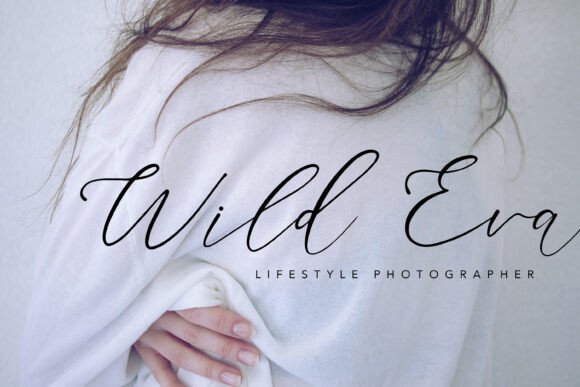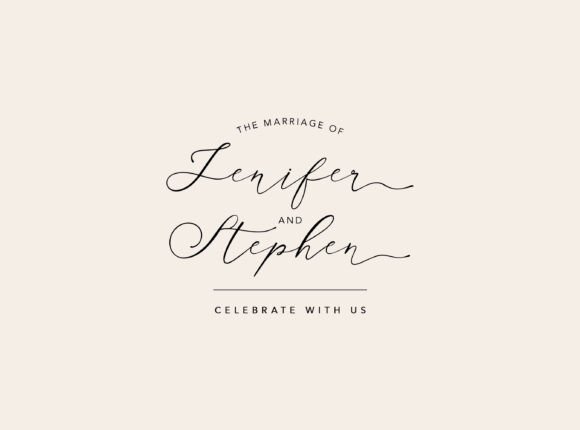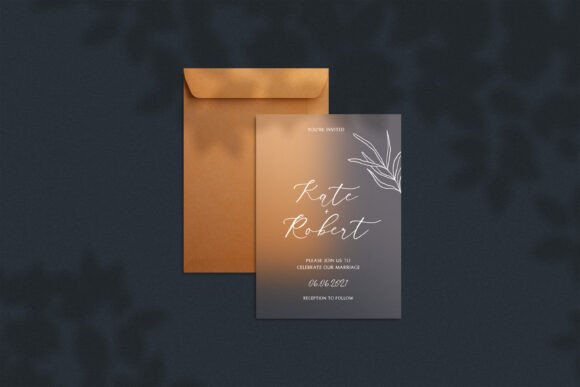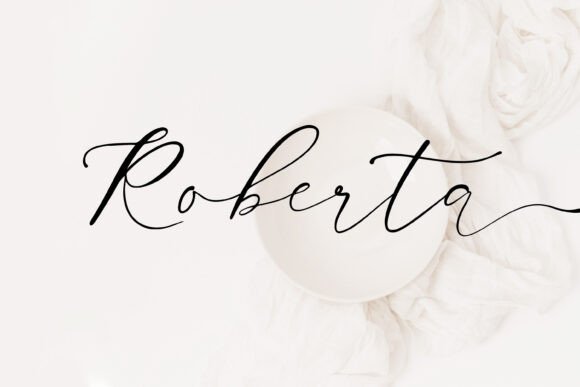
Introduction to Roberta Font
Roberta is a beautiful and elegant calligraphy font.
It has smooth, flowing letters that look like stylish handwriting Perfect for weddings, invitations, or any special project, Roberta adds a touch of charm and grace to your designs.
Key Features of Roberta Font